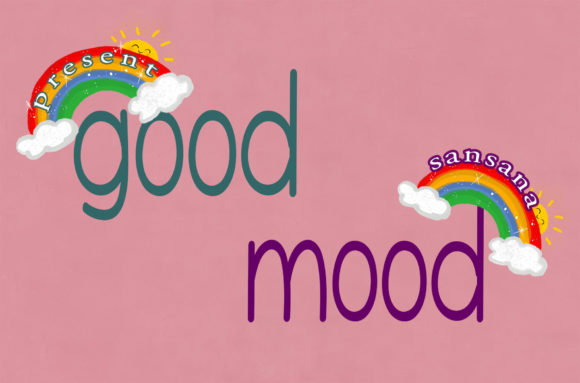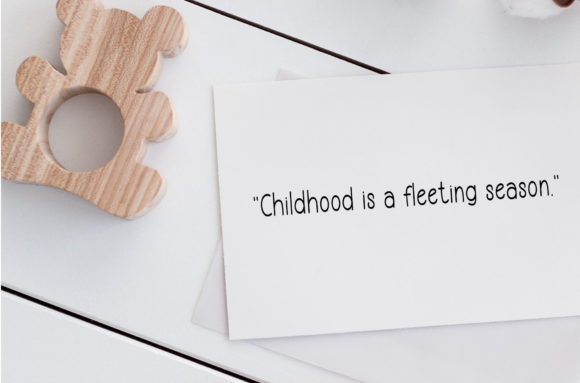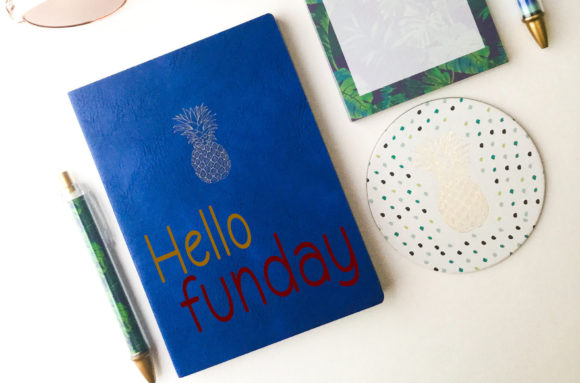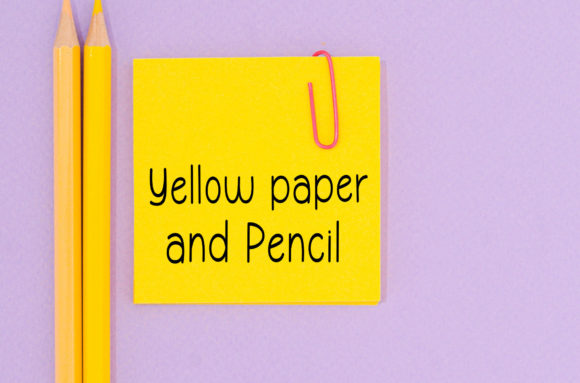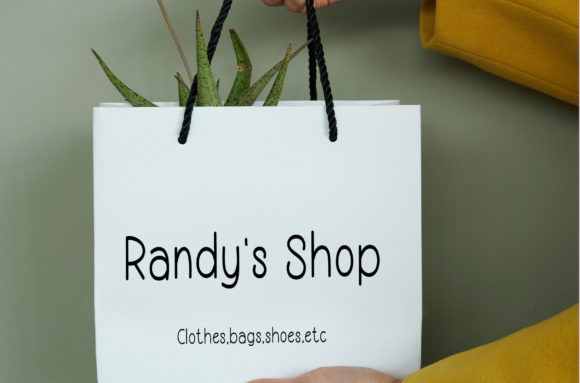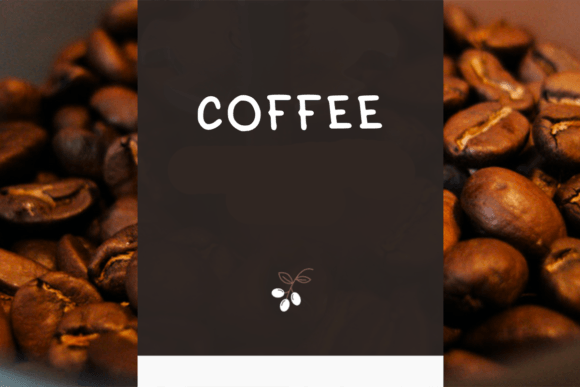
Good Mood Font
About Good Mood Font
Good mood is a cute and playful handwritten font. It is suitable for children’s themed designs, especially when combined with bright colors. Make your artwork more lively and colorful with this beautiful typeface!